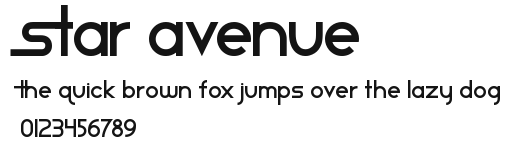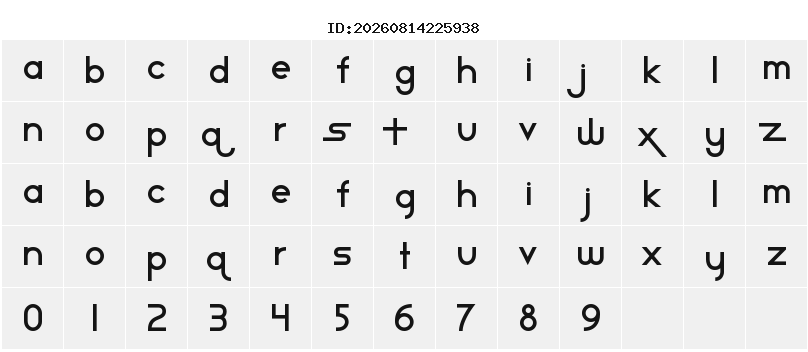
About Star Avenue.ttf
Star Avenue.ttf is a modern, elegant sans-serif font designed for ultimate readability and visual harmony. Perfect for branding, headlines, web design, and print materials.